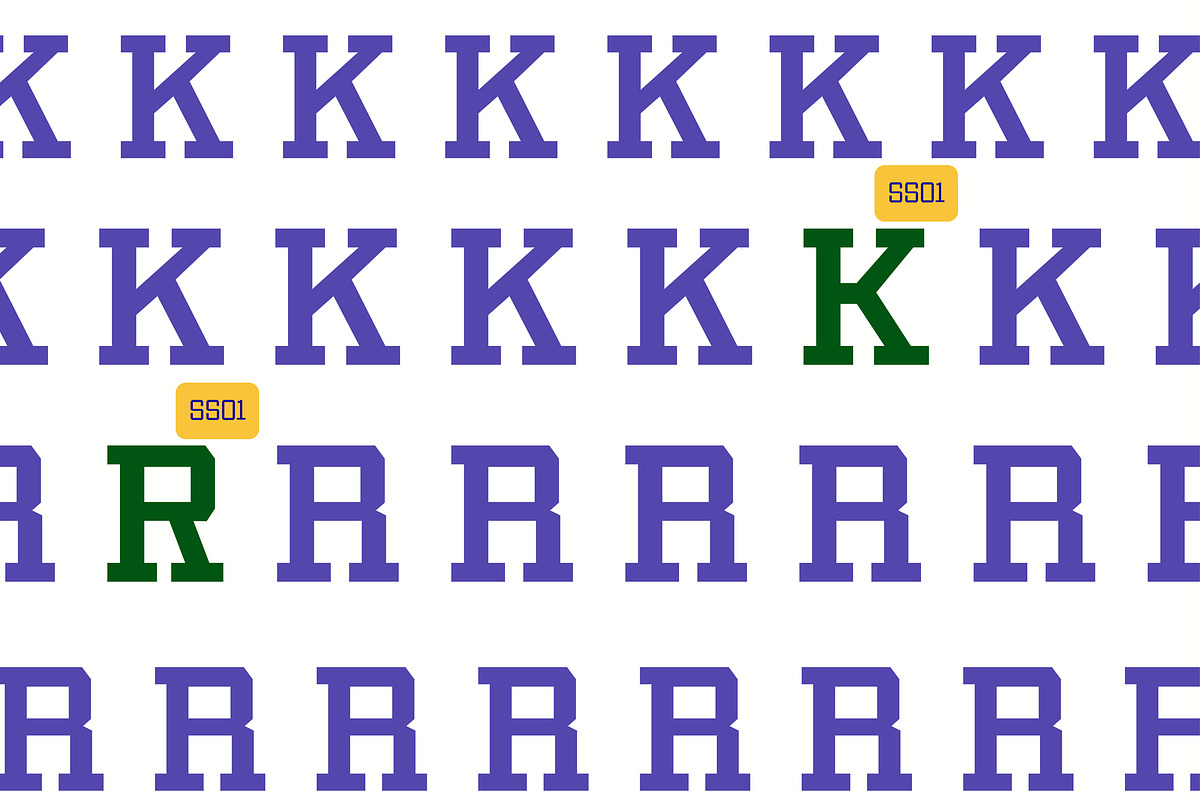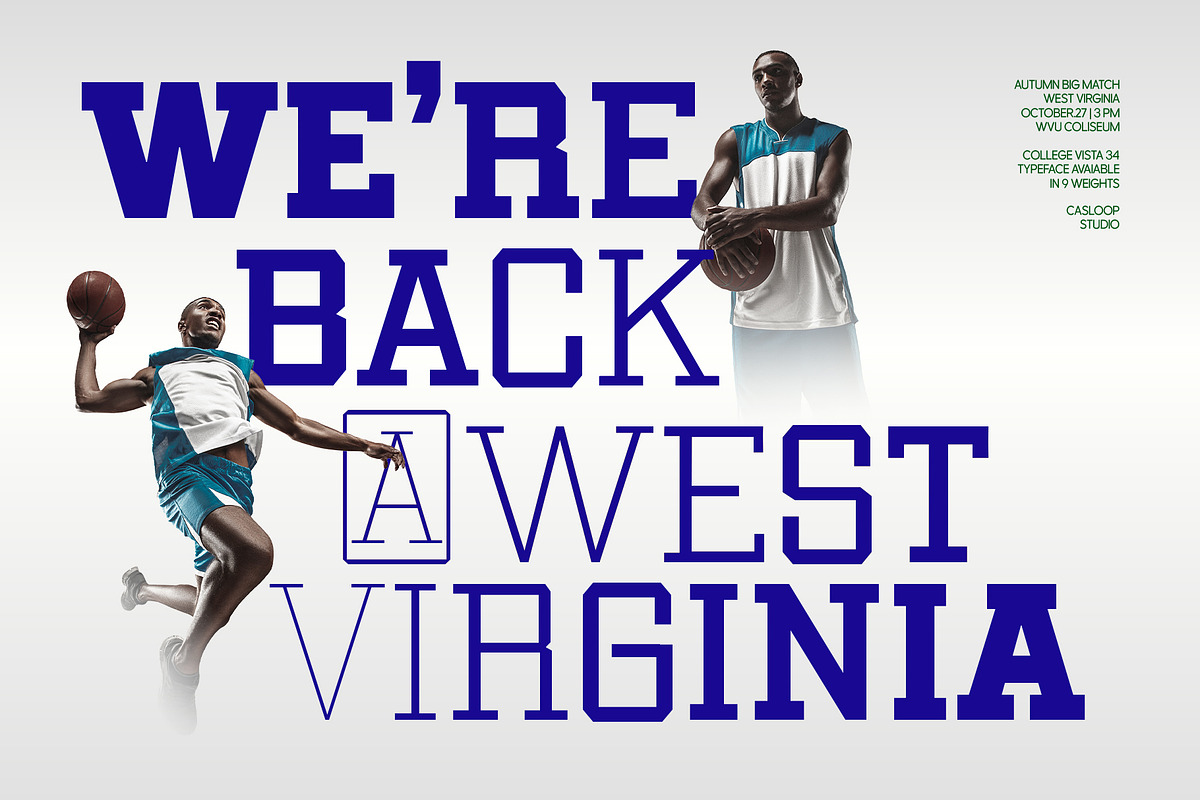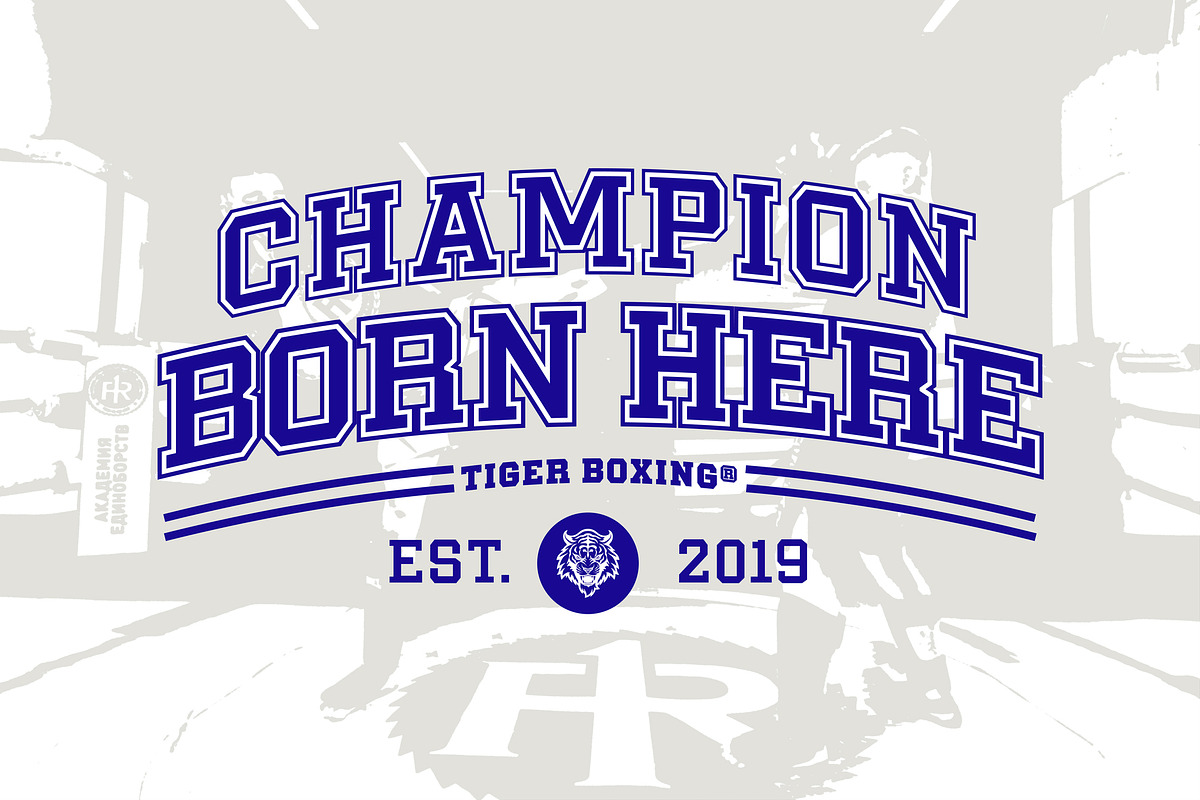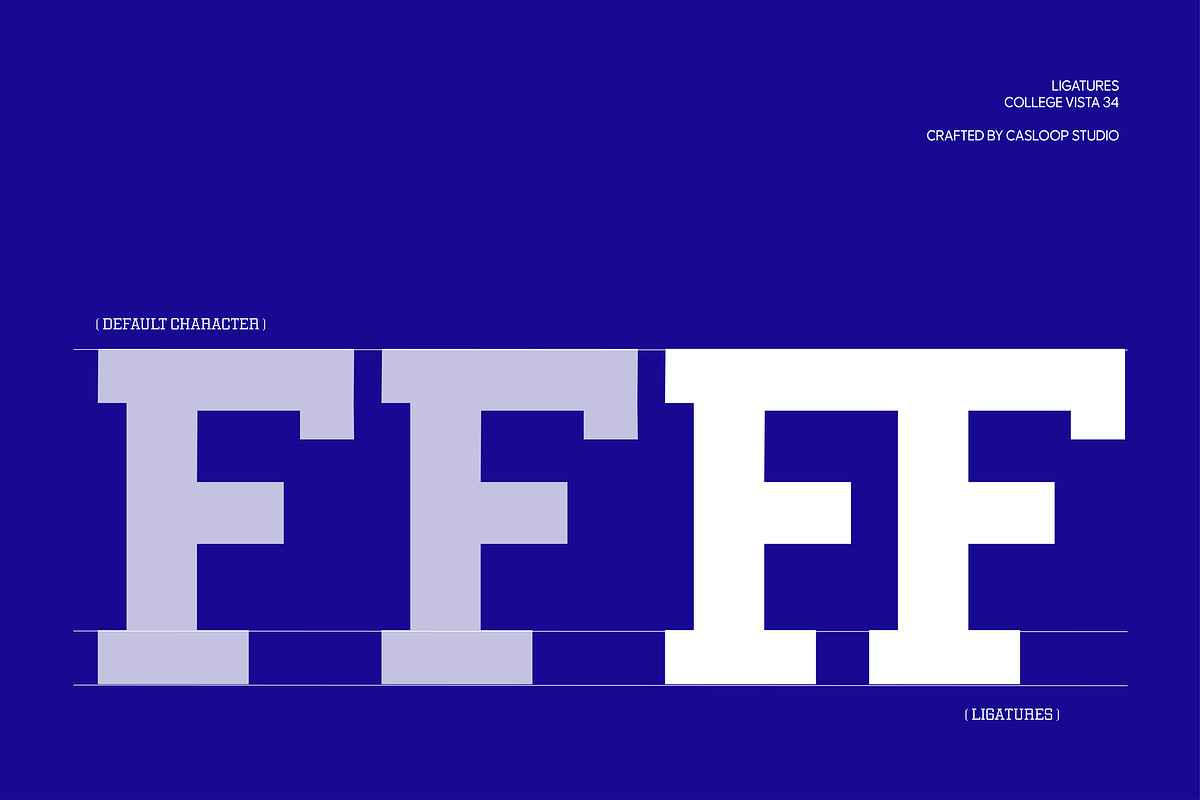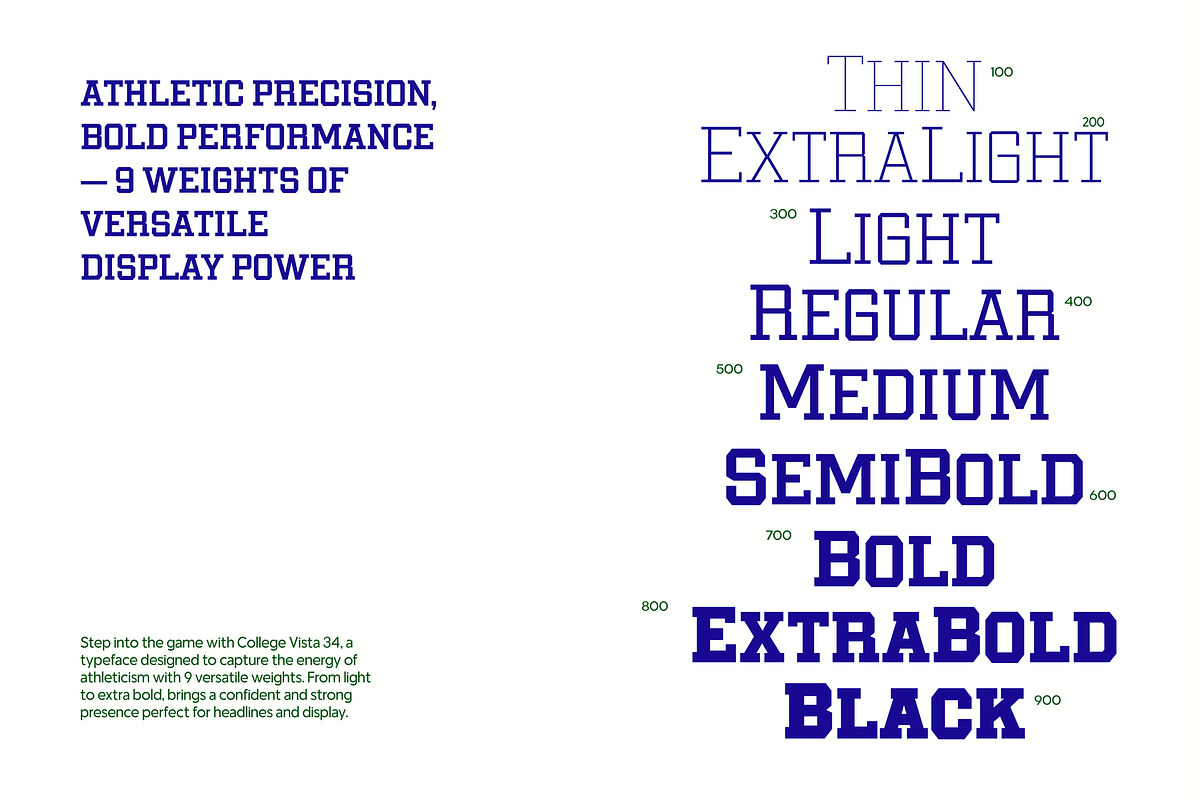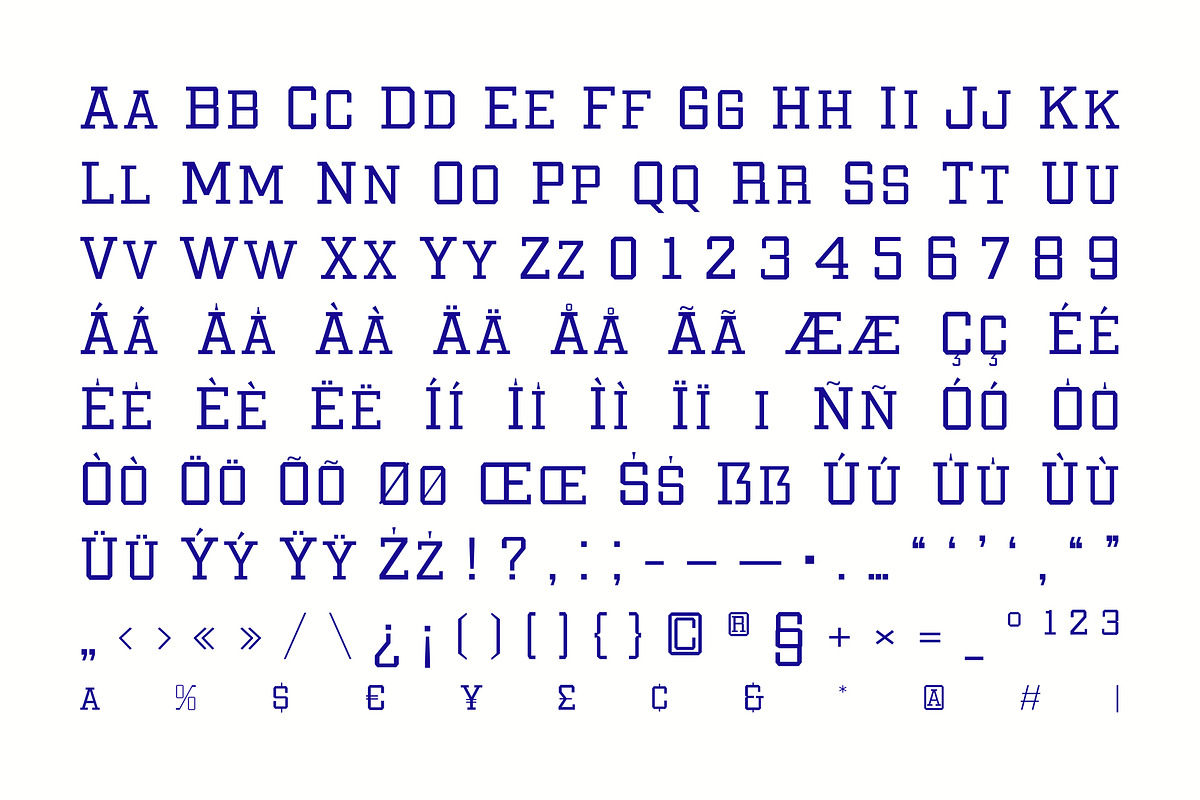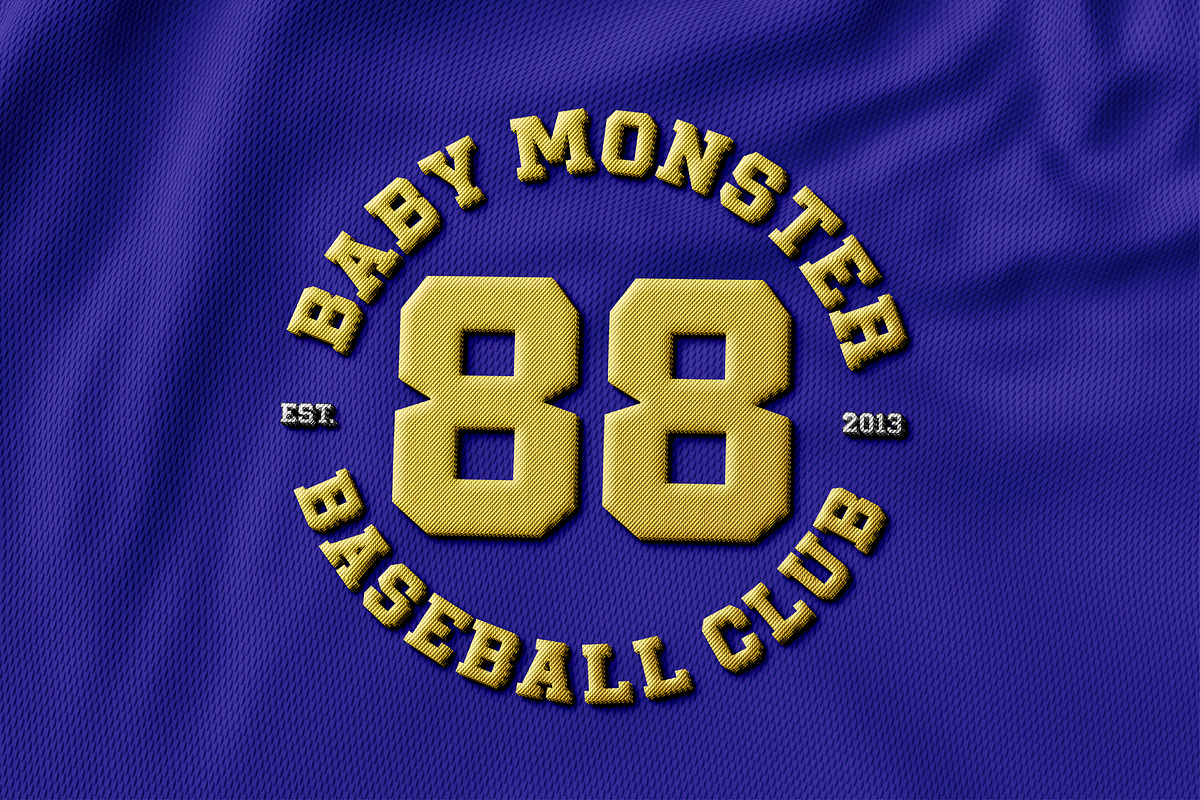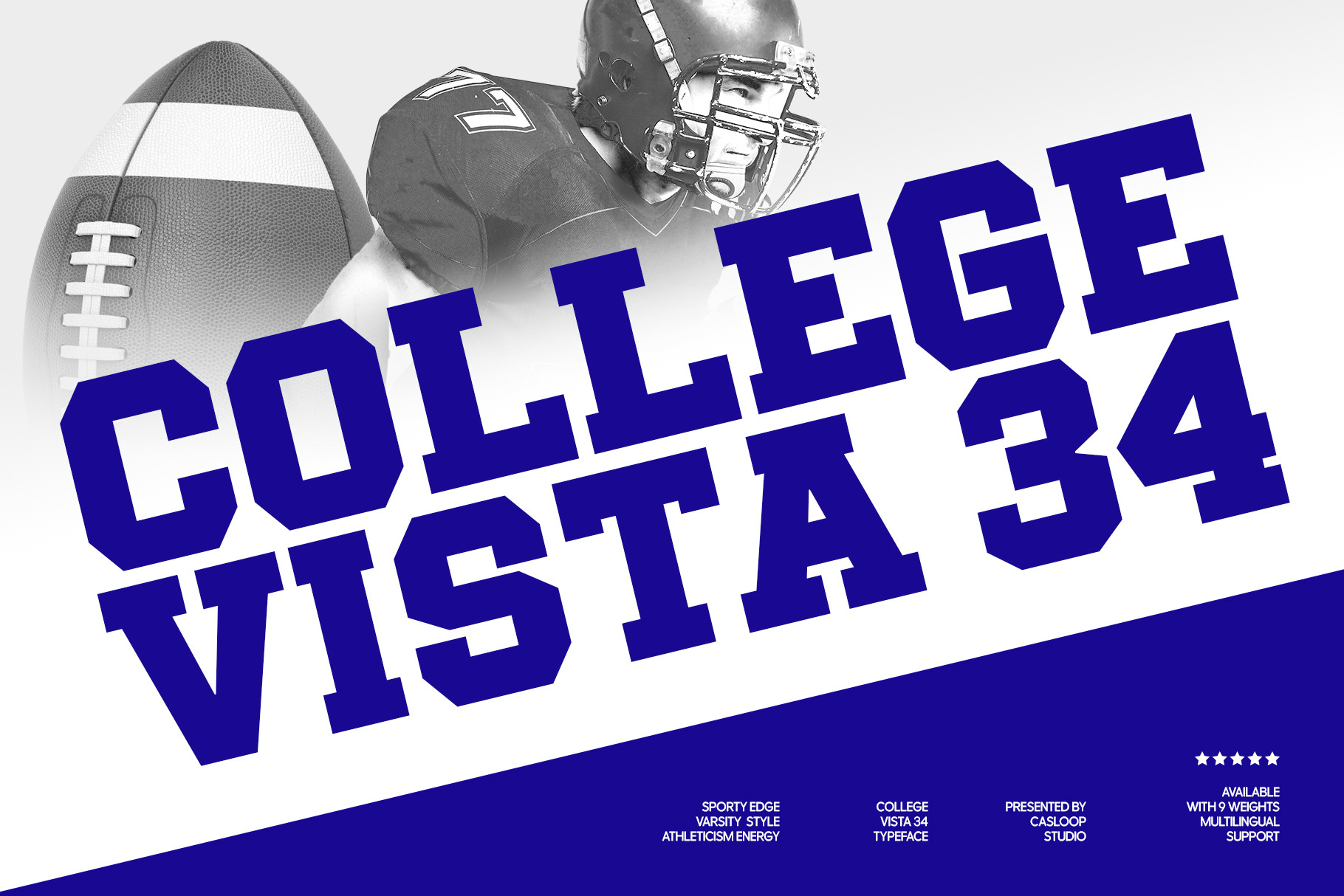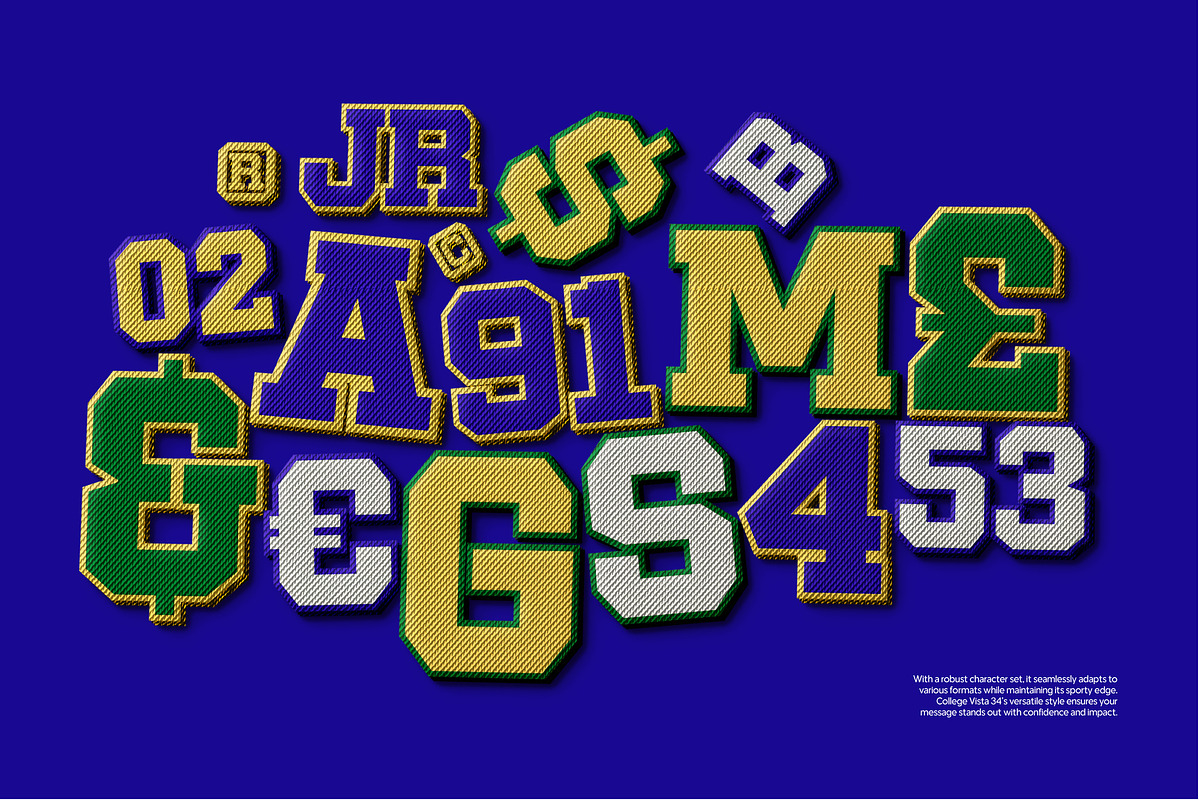
College Vista 34 - 9 Fonts
Introducing College Vista 34—a dynamic Slab Serif typeface designed to elevate your branding and visual identity. Inspired by Mid-Century aesthetics, this versatile font is a perfect blend of modern minimalism and strong, athletic spirit, making it ideal for university, sport, and automotive-themed projects.
College Vista 34 brings a contemporary edge with its bold and blocky shapes while maintaining legibility across various mediums. Its quirky yet structured form makes it stand out, whether for digital media visuals, campus posters, or athletic jerseys. Designed with the versatility to fit both packaging and motion graphics, it’s perfect for anything from construction branding to university sportswear.
This premium Slab Serif typeface comes in a full font family, from thin to black, offering dynamic range and flexibility. Its expressive, sporty design is ideal for logos, websites, text animations, and even campus posters. College Vista 34’s strong, youthful vibe lends itself to any project needing a powerful and professional presence, particularly in sports, automotive, or college settings.
Uppercase & lowercase
Numbers and punctuation
Ligatures & Alternates
College Vista 34 is your go-to font for creating standout designs that demand attention. Whether it's for a sleek website, an iconic logo, or stylish branding, this unique slab serif typeface delivers strength and originality with every letter. Download now and make your project exceptional!